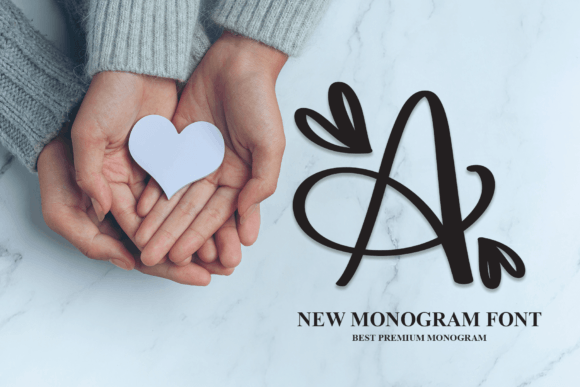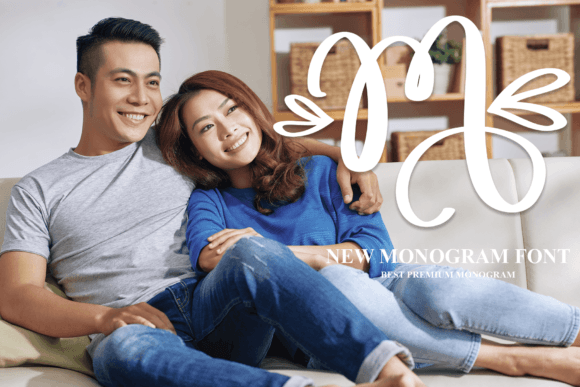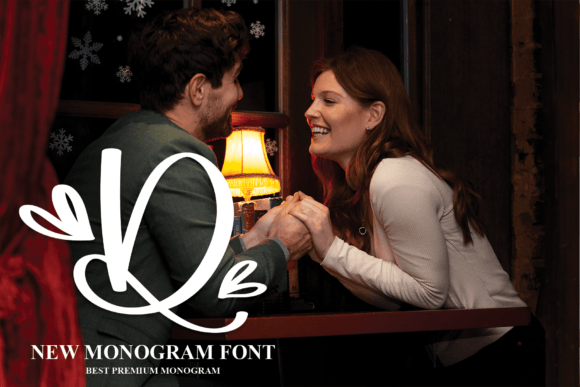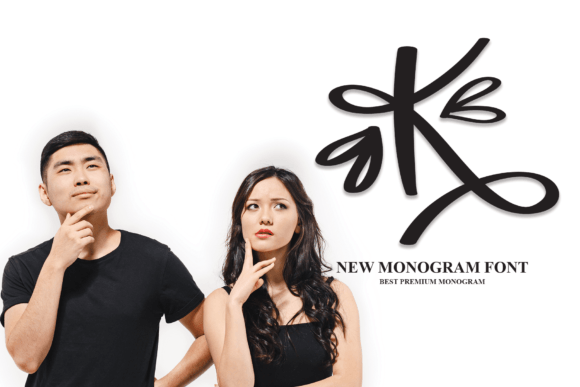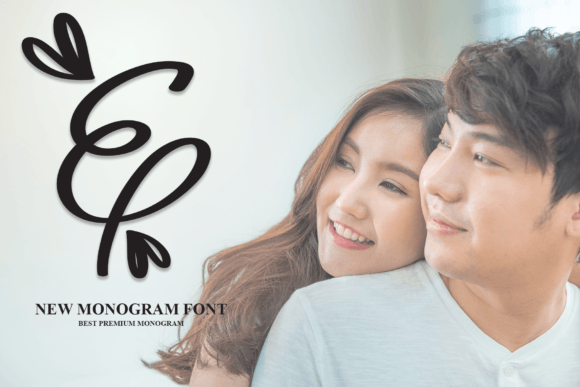
Introduction to S Monogram Font
S Monogram is a fresh and highly detailed decorative font.
Add this beautiful-looking font to any of your favorite love letters, wedding invitations, or design ideas, and you’ll be surprised at the results .
Key Features of S Monogram Font
Why Choose S Monogram Font?
S Monogram Font offers exceptional quality and versatility, making it a valuable addition to your design toolkit. Whether you’re creating for personal projects or commercial use, S Monogram Font delivers professional results.